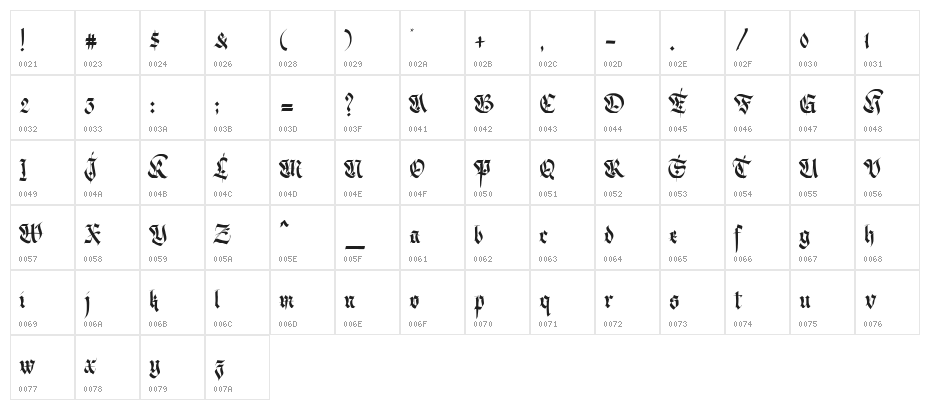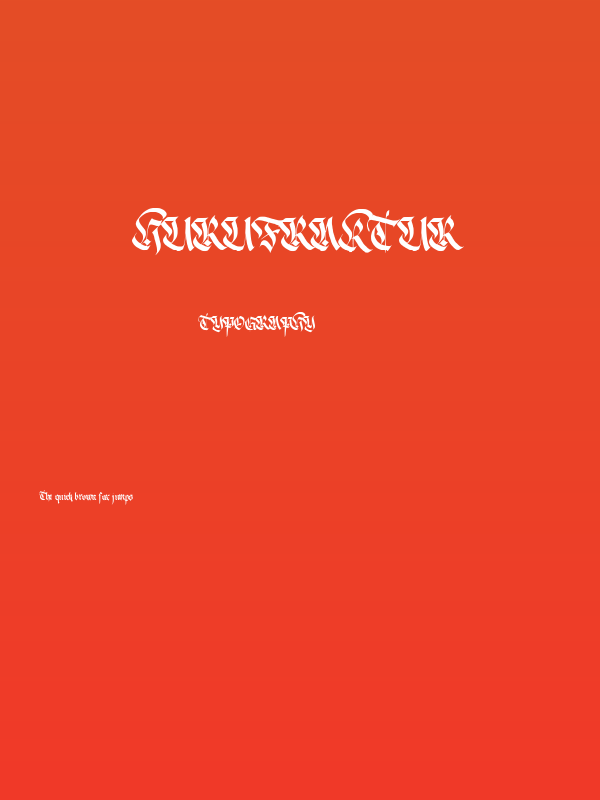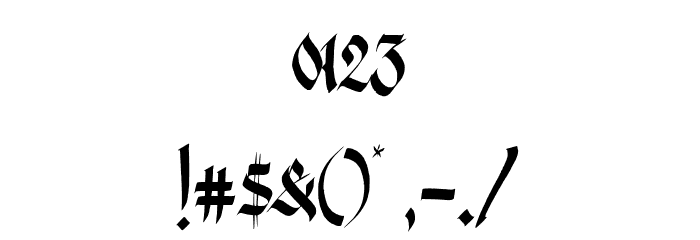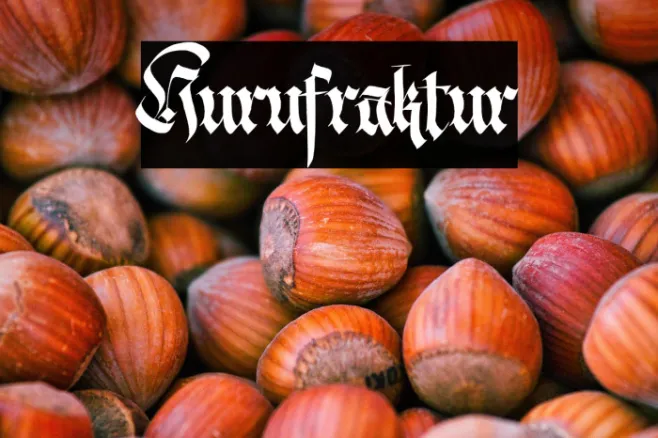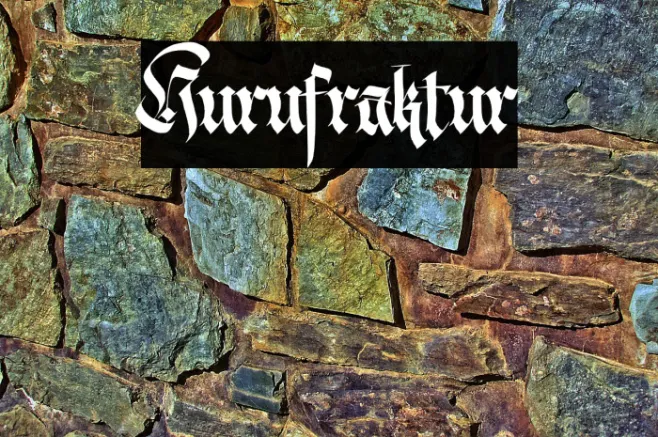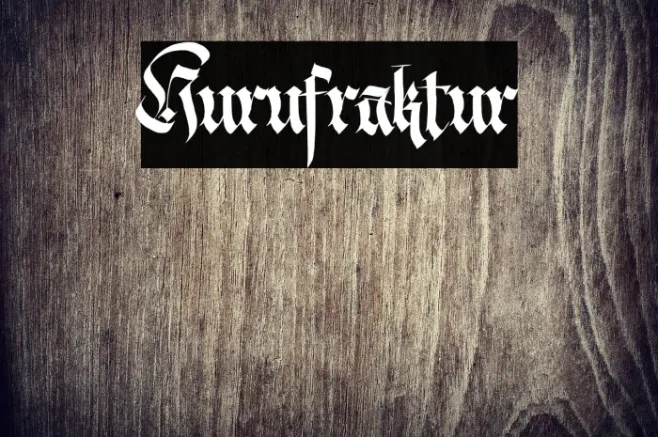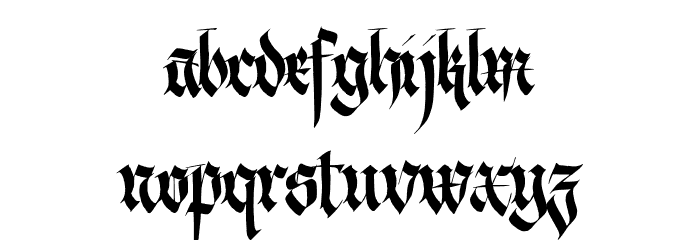
Hurufraktur Font
Hurufraktur Description
This font exhibits a traditional and intricate Blackletter style, characterized by its ornate and angular letterforms. The uppercase letters are bold and dramatic, with sharp edges and elaborate flourishes that give a sense of historical elegance. The lowercase letters maintain the same intricate detailing, offering a cohesive look throughout the typeface. Numbers and special characters are designed with the same attention to detail, ensuring consistency. The overall appearance is reminiscent of medieval manuscripts, making it suitable for projects that require a touch of classic sophistication.
| Proposed Projects | Ideal for historical documents, certificates, wedding invitations, and branding that requires a classic or medieval aesthetic. |